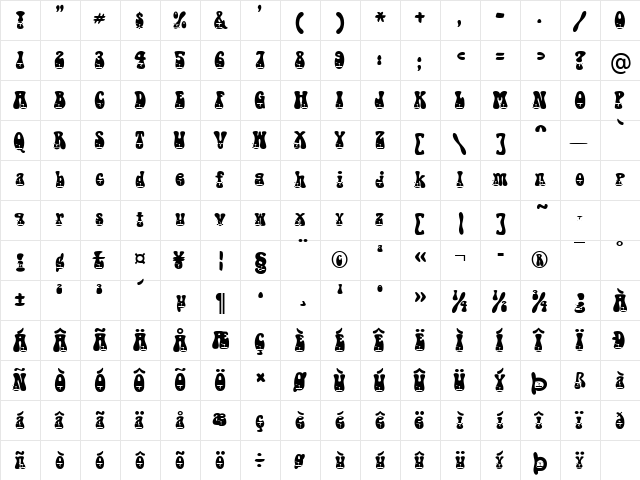
Gymnastics Becker Normal Font Preview
Gymnastics Becker Normal
Design Context for Gymnastics Becker Typeface
Gymnastics Becker is a composed and adaptable typeface that performs quietly and consistently across a wide range of design contexts.